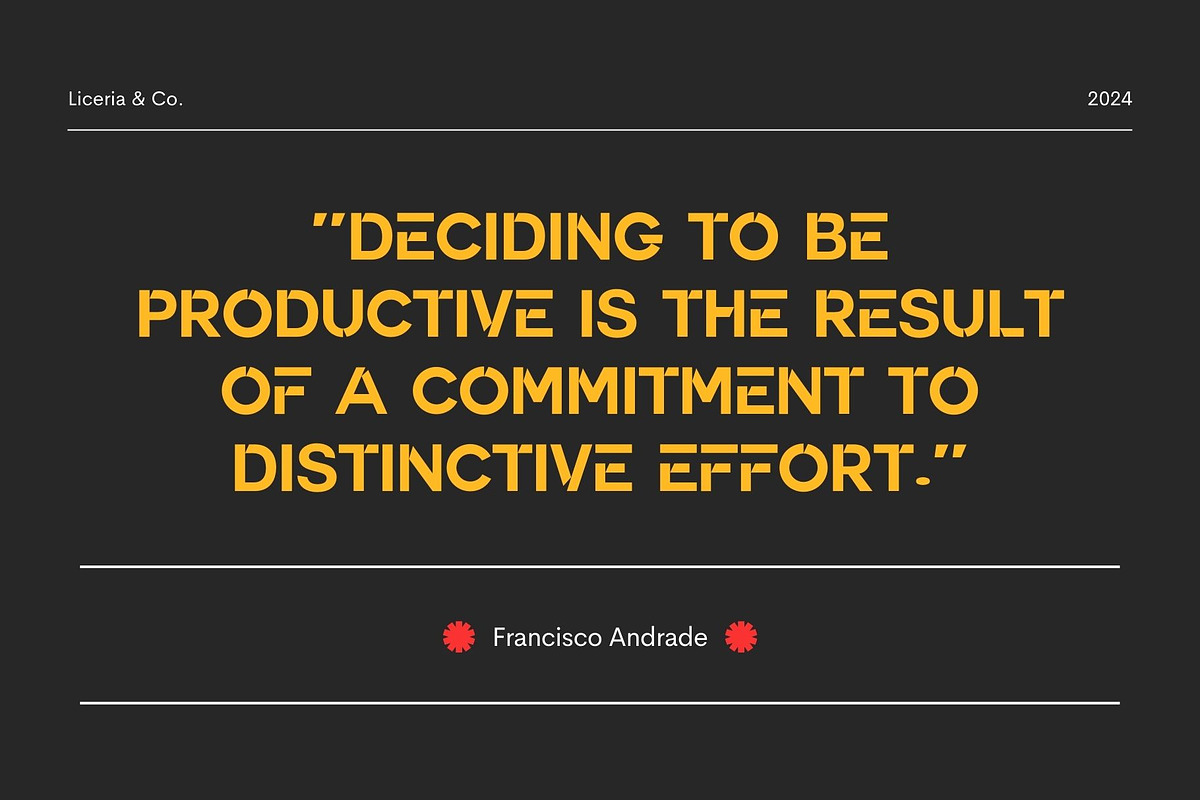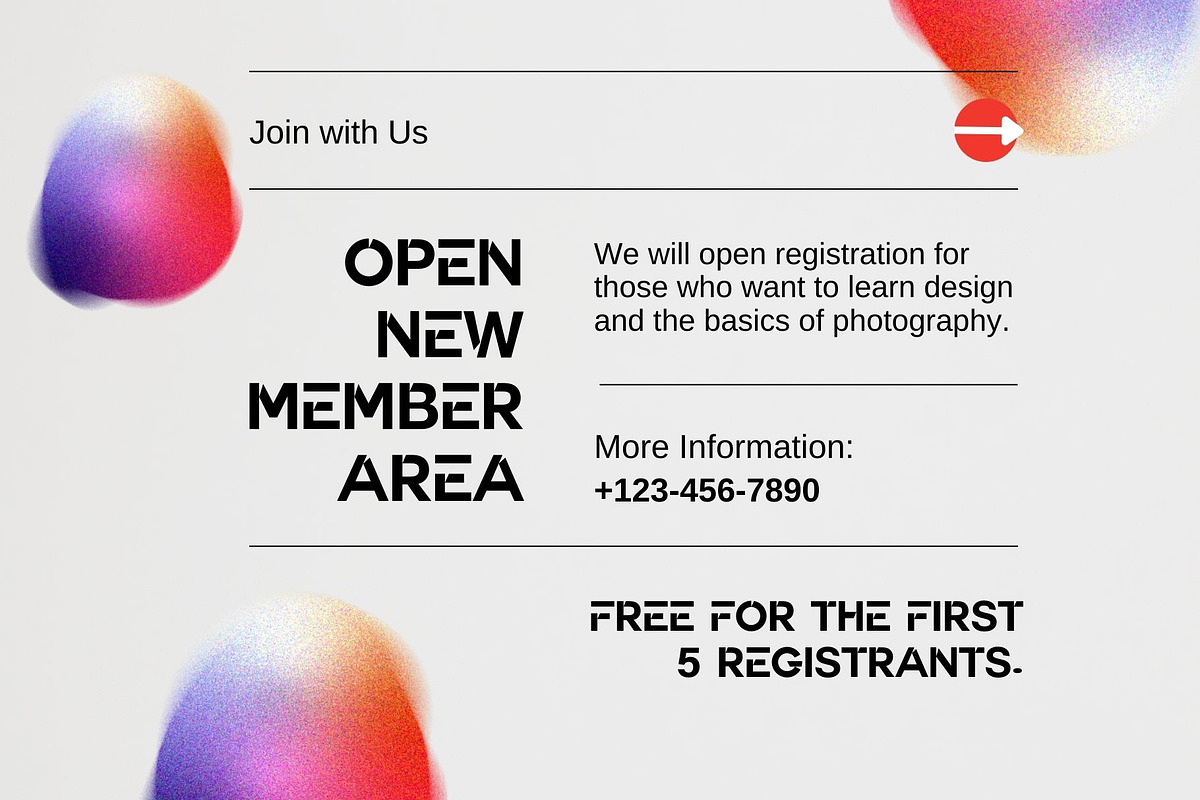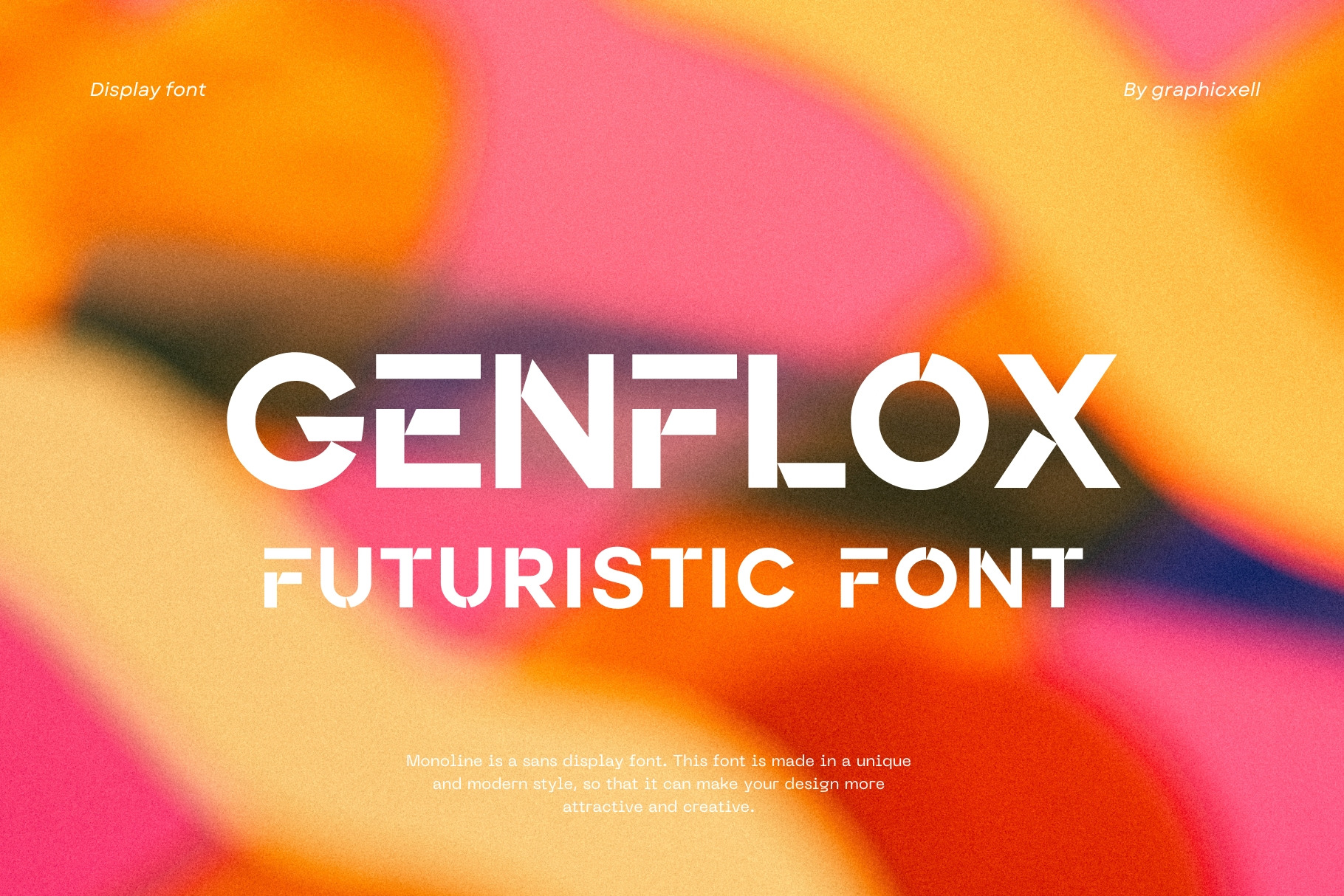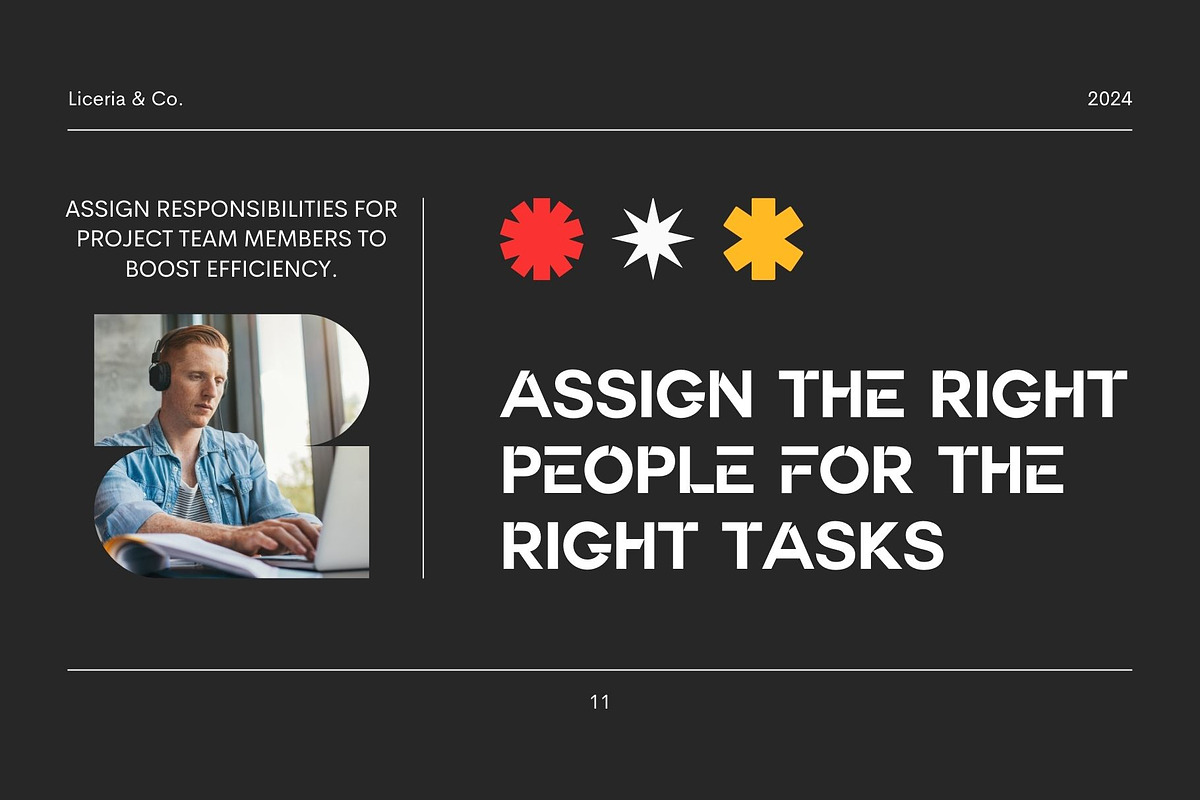
Genflox Futuristic Font Typeface
Genflox Futuristic Font Typeface inspired by the famous minimalist logo perfect for the purposes of designing templates, brochures, videos, advertising branding, logos, invitation, layout design, elegant crafting, beauty design and other